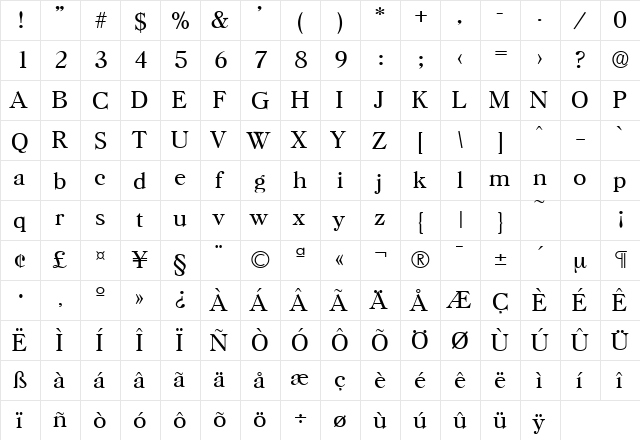
Horsham-Serial-Light Regular
Design Context for Horsham-Serial-Light Typeface
Horsham-Serial-Light takes a measured approach to typography — its balanced proportions and neutral character make it a reliable workhorse for both digital and print work. Its slender proportions lend an understated elegance to any composition.
Pro Tip: Use Horsham-Serial-Light in both headline and body roles to test its range before committing to a single application.